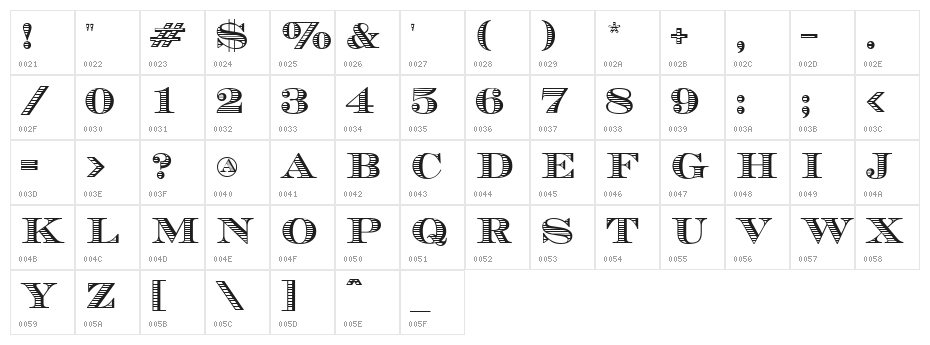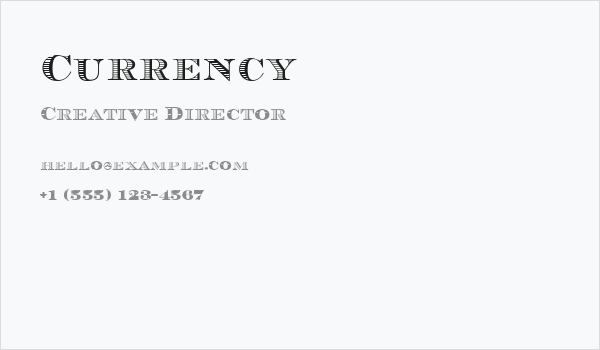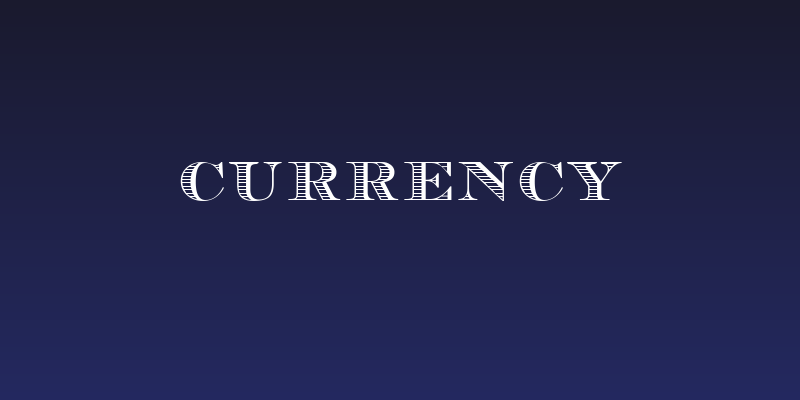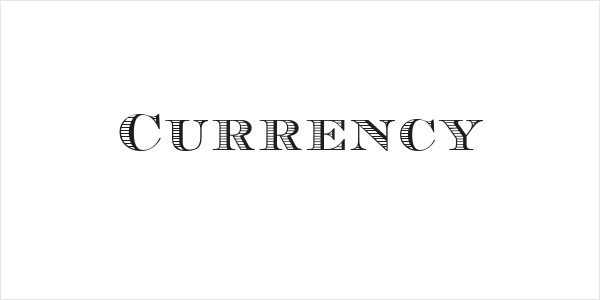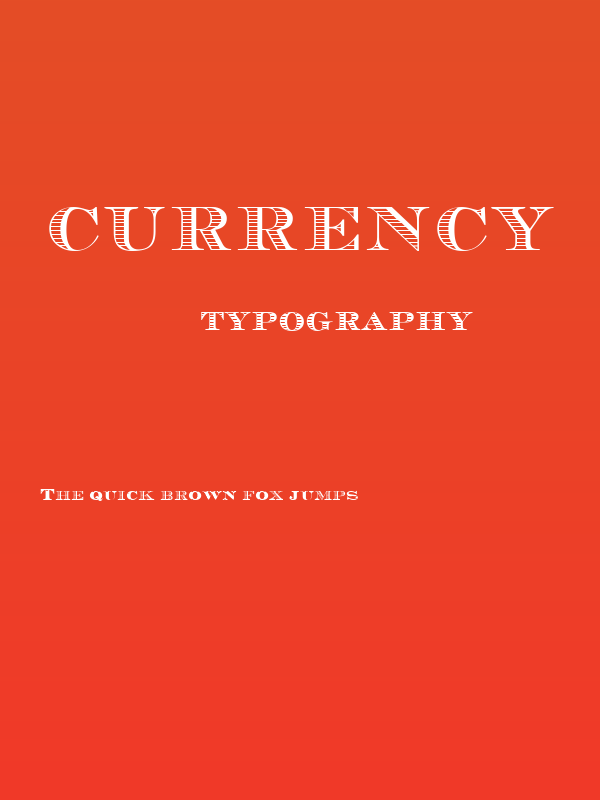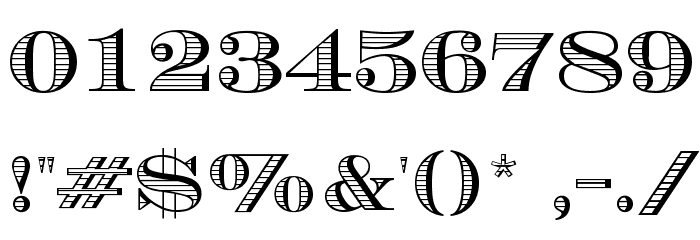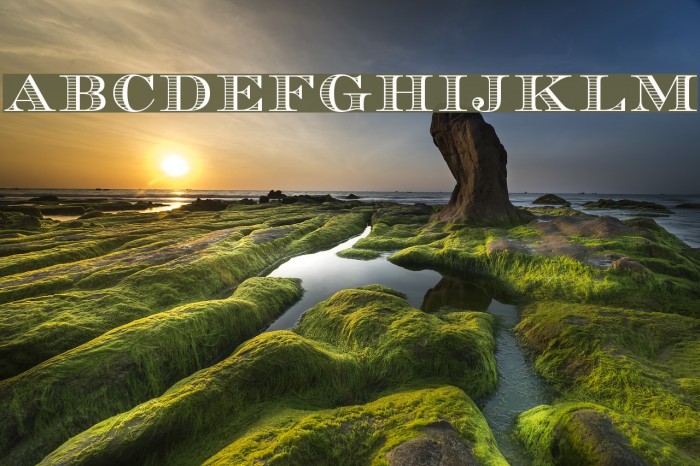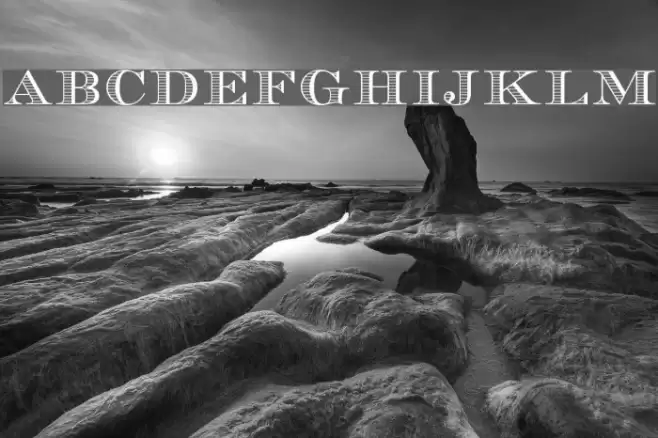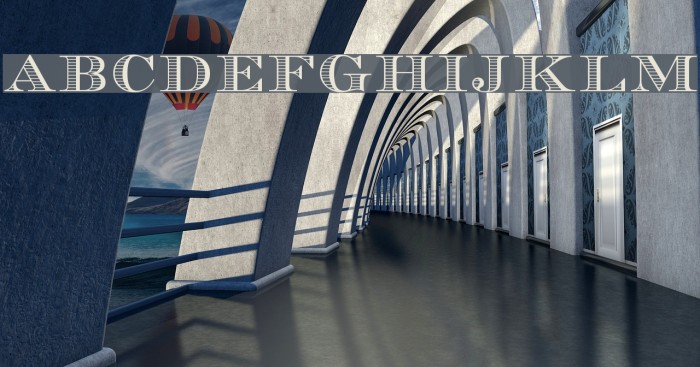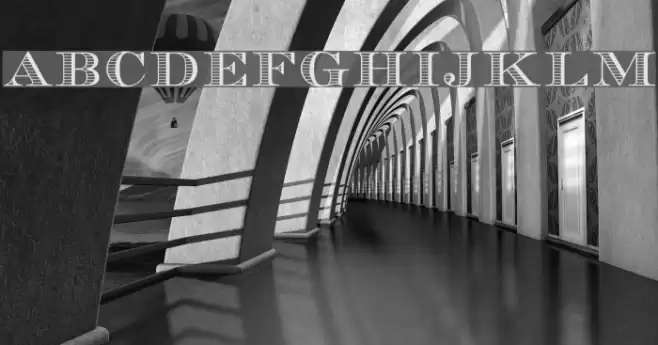
Currency Font
| おすすめプロジェクト | Ideal for vintage-themed designs, posters, branding for luxury products, or any project requiring a classic, ornate touch. |